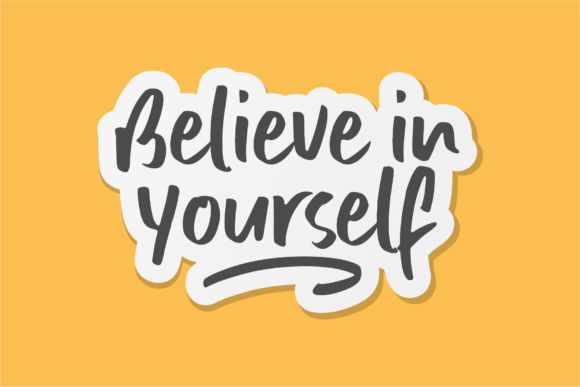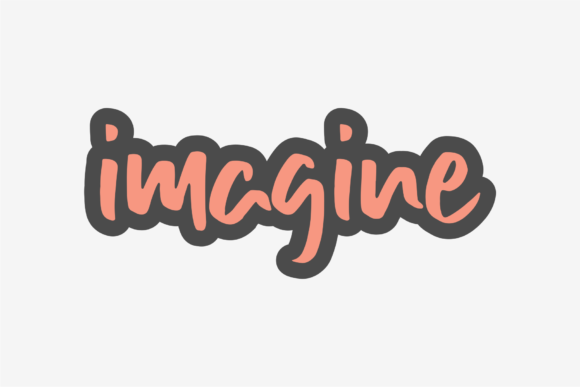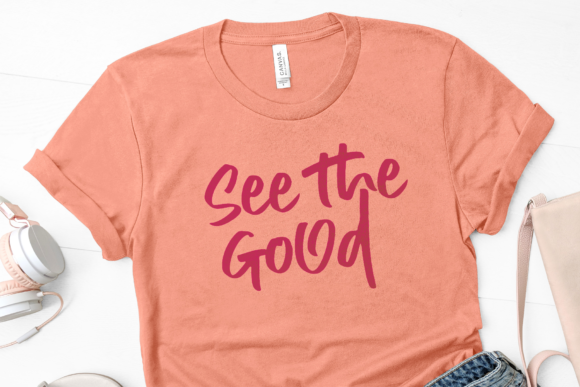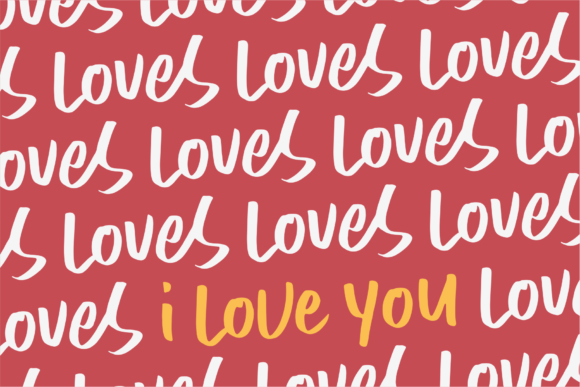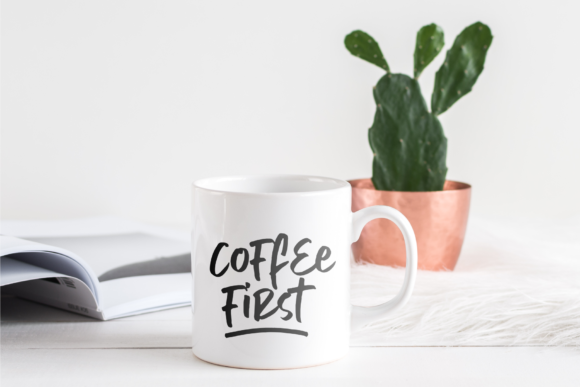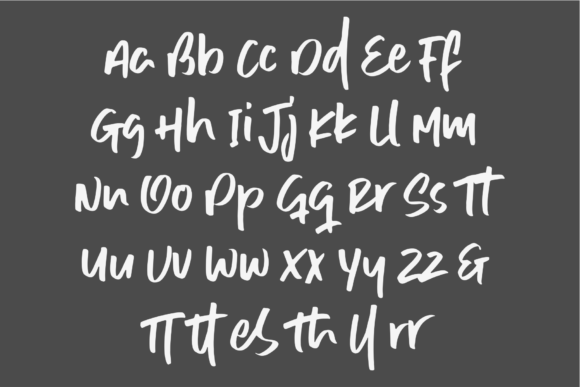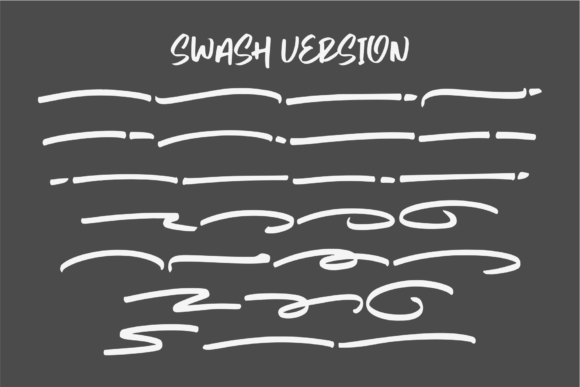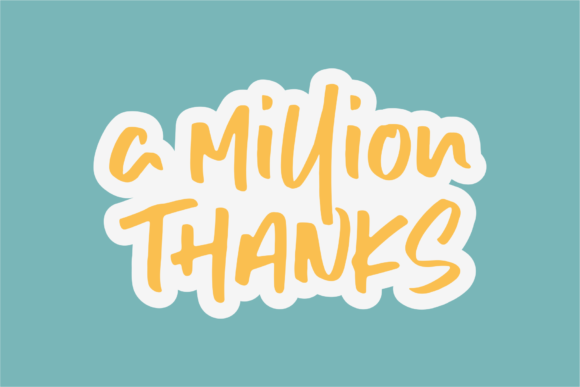
Gilligan Coast Font
About Gilligan Coast Font
Gilligan Coast is a unique and incredibly relaxed handwritten font. Its flowing and friendly style make it very versatile, the right match for each of the creative projects you wish to design!